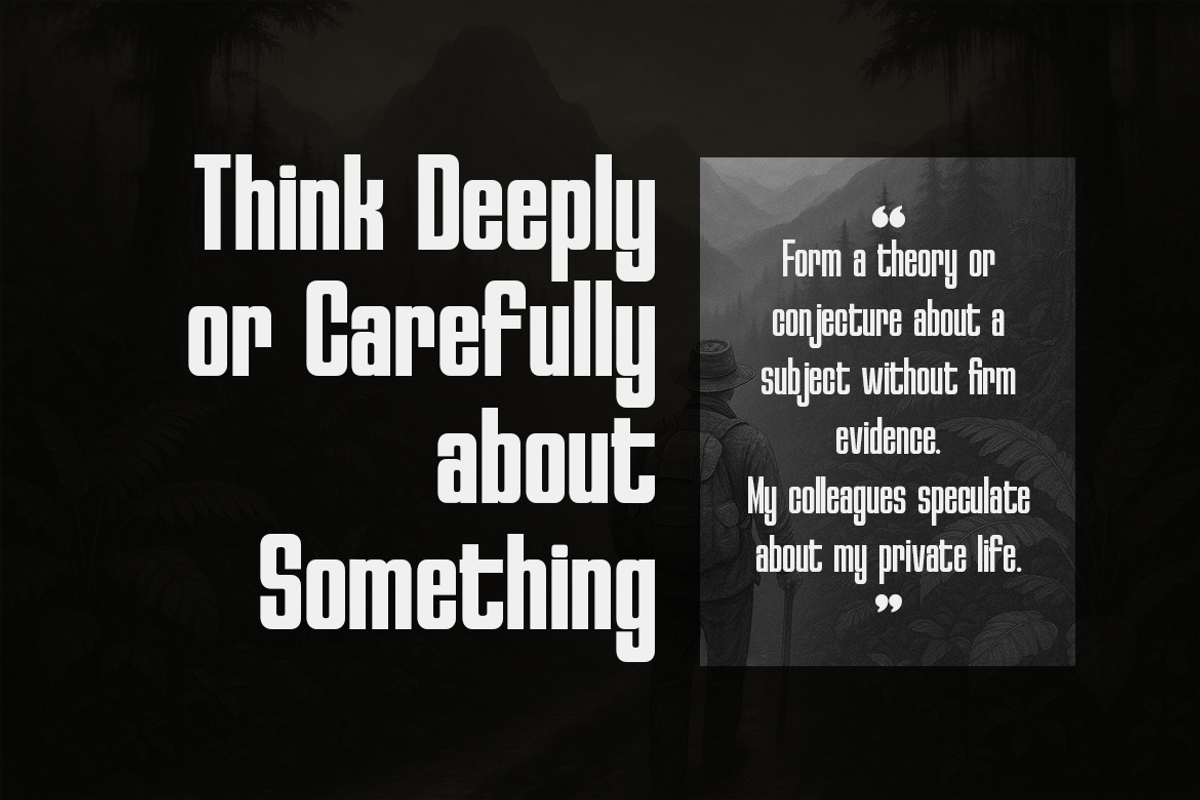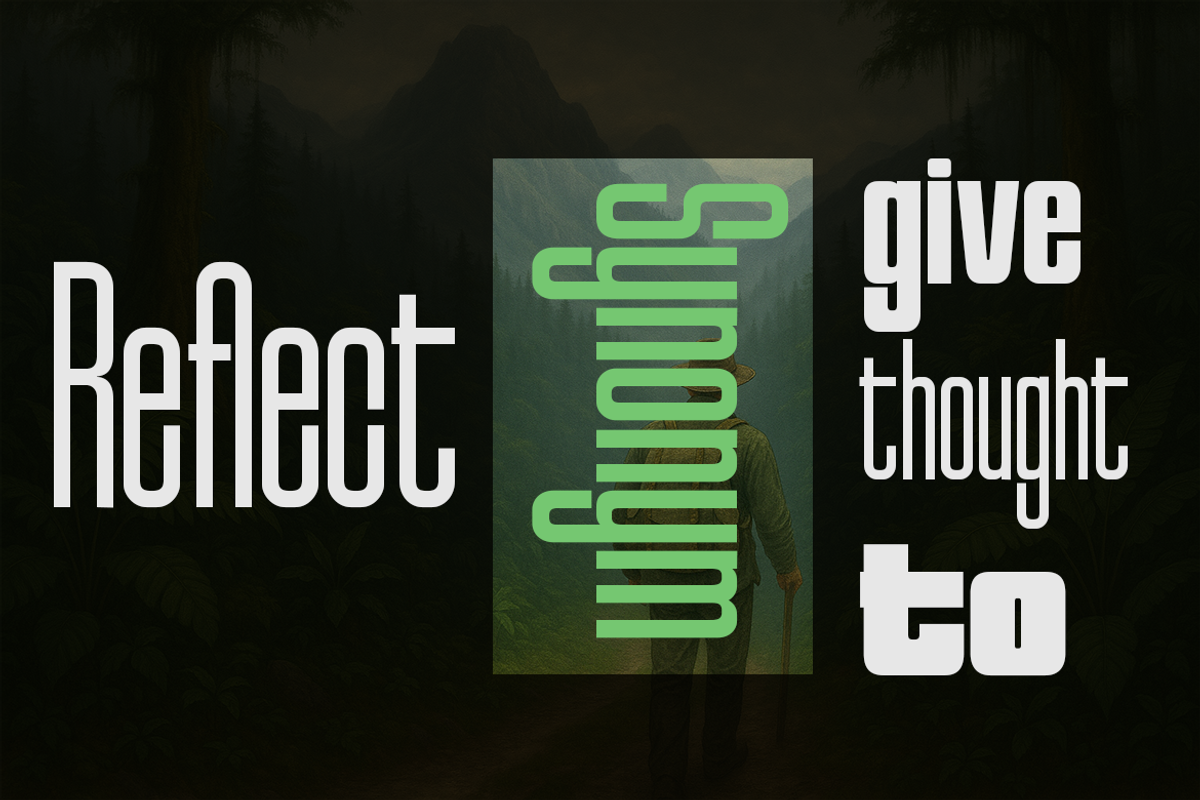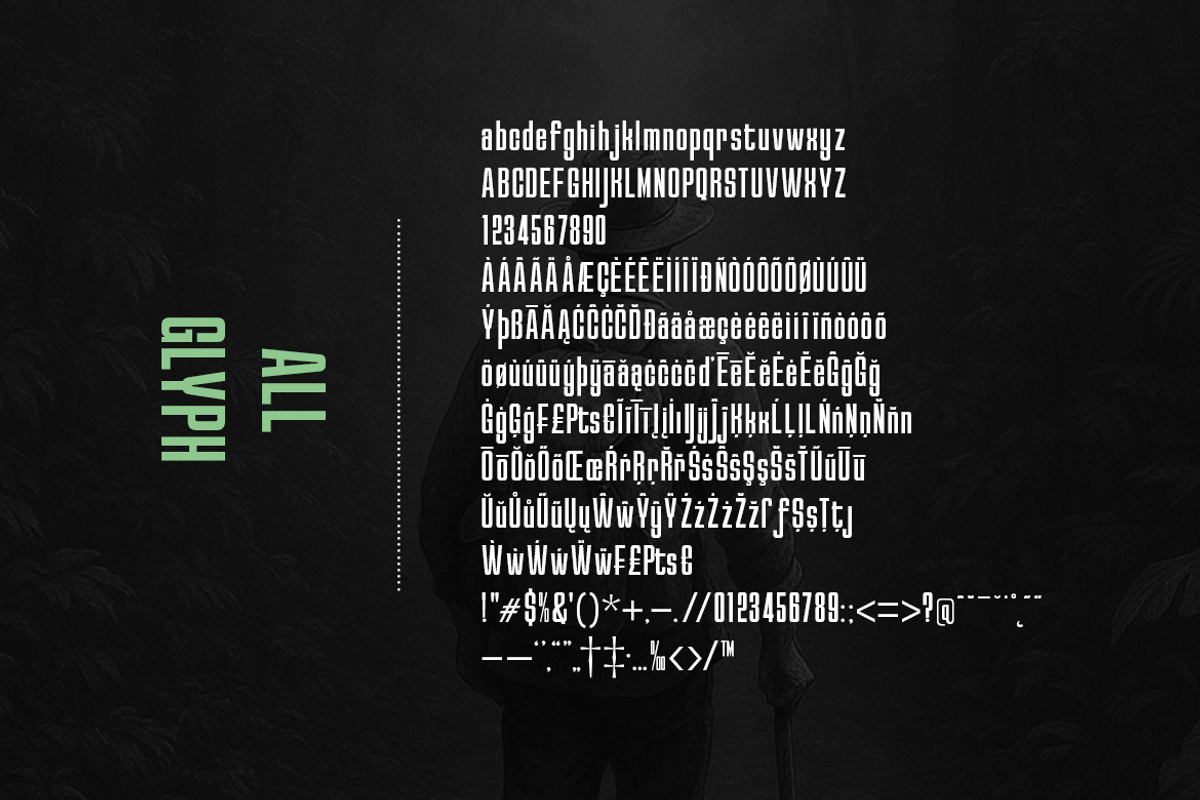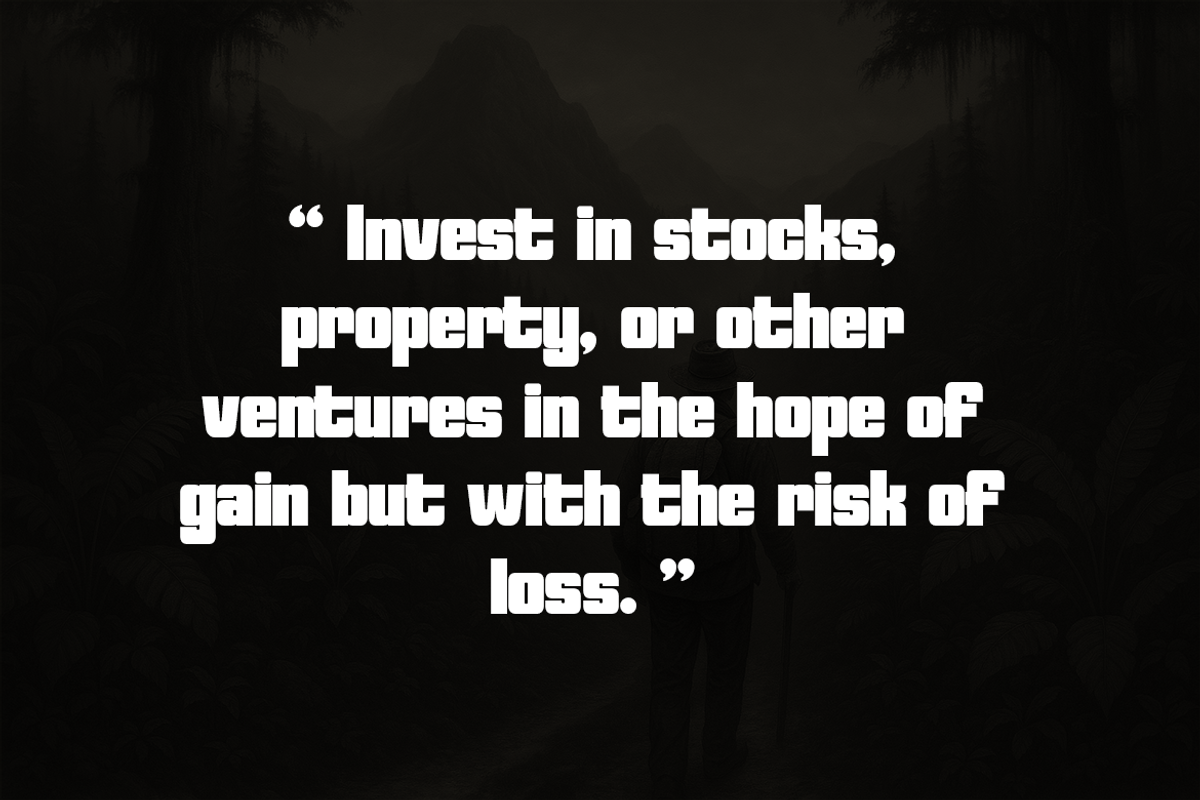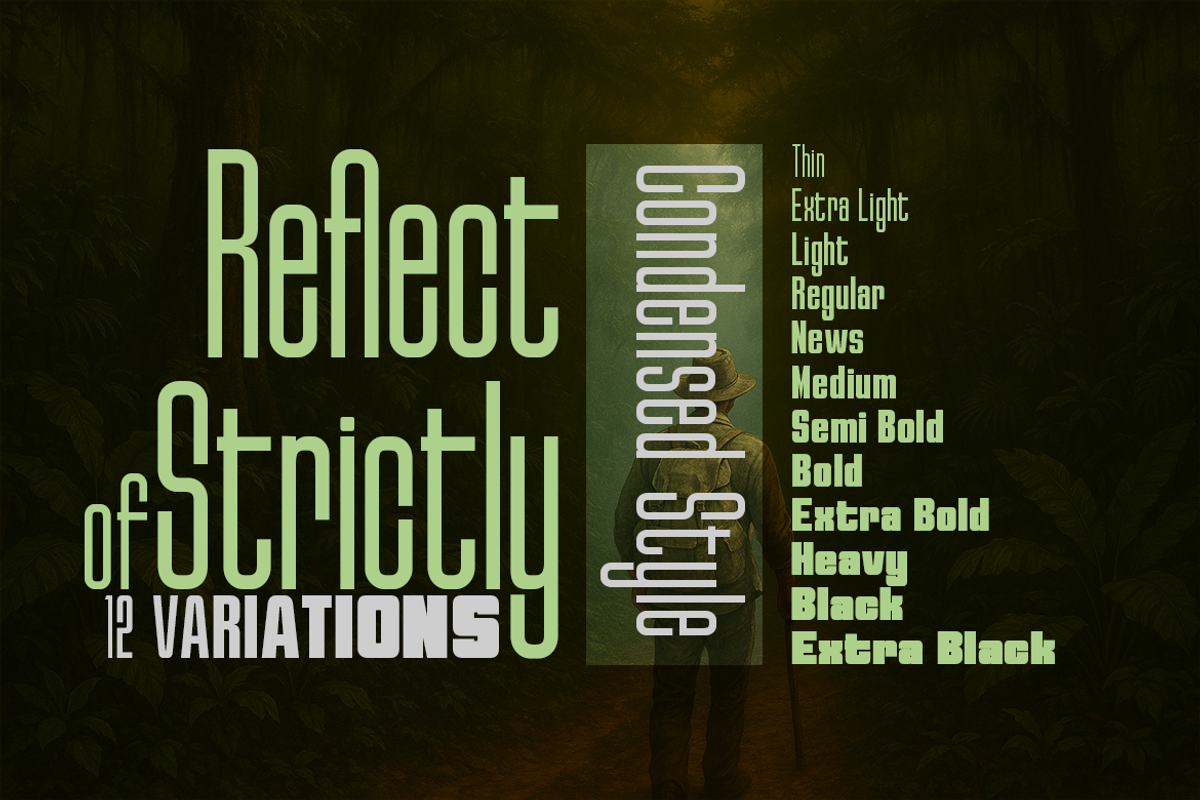
Reflect of Strictly Condensed
Reflect of Strictly Condensed — 12 Upright Weights (Thin–Extra Black)
Reflect of Strictly Condensed is a slim, space-efficient sans-serif display typeface crafted for designers who need maximum clarity in narrow layouts. With tall proportions, sharp geometry, and tight spacing, the Condensed family delivers a disciplined visual rhythm that feels modern, sleek, and highly functional.
This style is ideal for environments where verticality and space-saving efficiency are crucial. Despite its compact width, each letter retains a strong sense of structure and balance, ensuring readability even at smaller sizes.
Perfect for: — Narrow editorial columns — Vertical posters and banners — Modern packaging and labeling — Minimal or compact UI/UX design — Headings that need impact without taking horizontal space
The Condensed family includes 12 upright weights, from Thin, Extra Light, Light, Book, Regular, Medium, Semi Bold, Bold, Extra Bold, Black, Heavy, to Extra Black, giving designers wide flexibility while maintaining a consistently tight form.